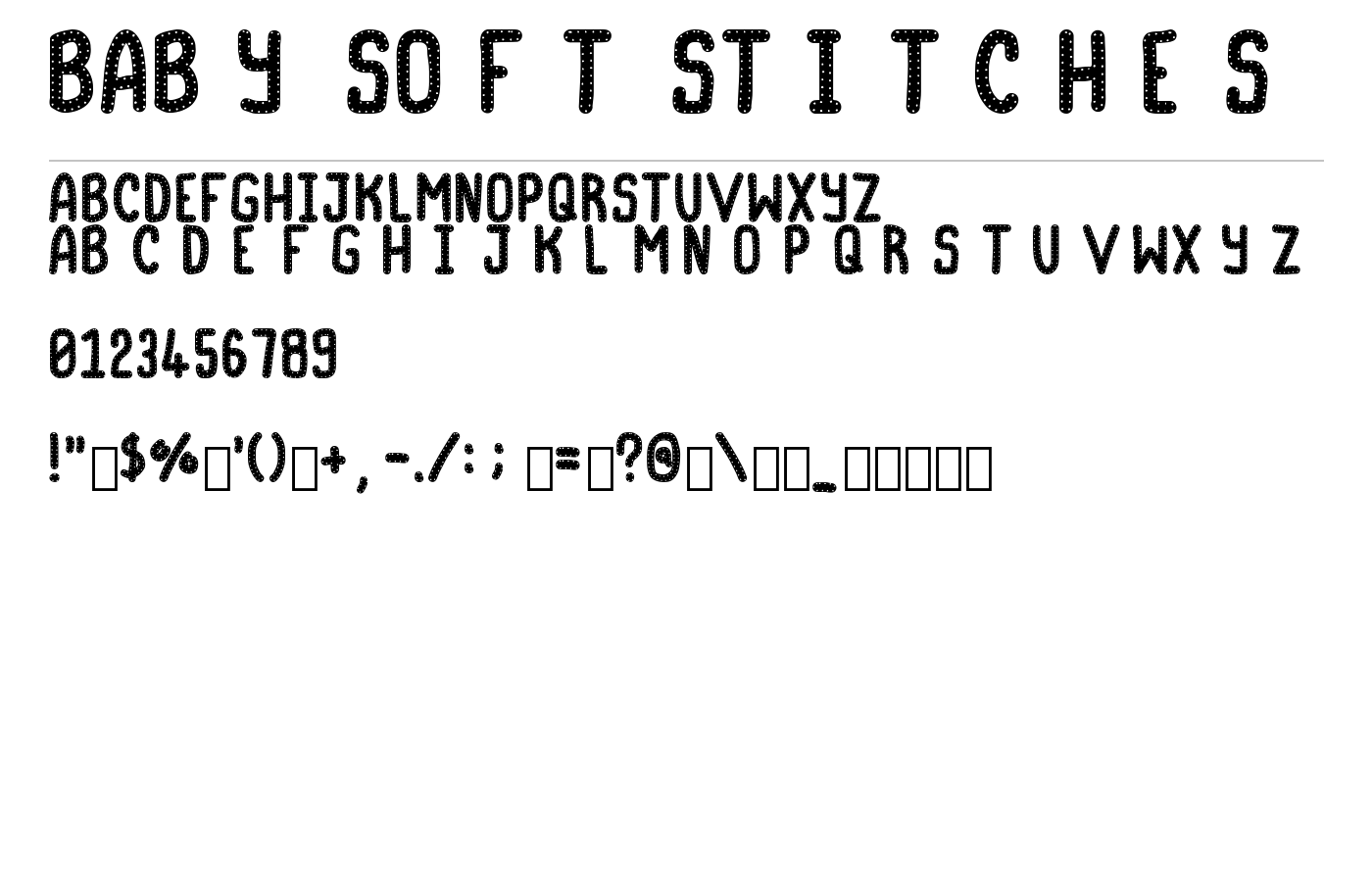
Baby Soft Stitches is a playful and friendly sans serif font featuring rounded, stitched-like edges that give it a handcrafted, cozy feel. Its lively, slightly condensed letterforms with consistent stroke weight make it ideal for children’s designs, crafts, or casual branding that seeks warmth and approachability. This font works especially well for logos, packaging, and invitations where a charming, soft touch is desired.
Baby Soft Stitches Font
About Baby Soft Stitches Font